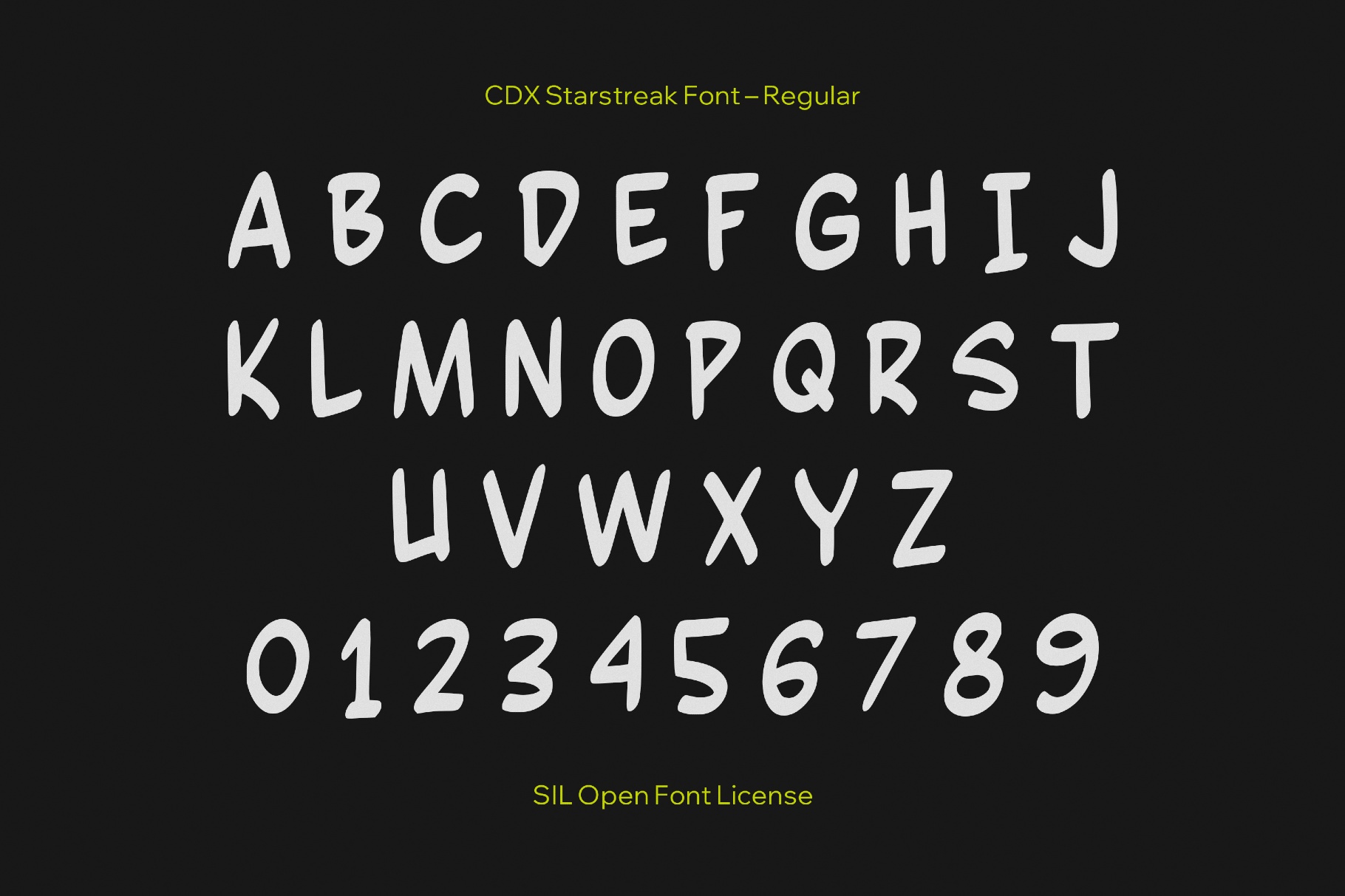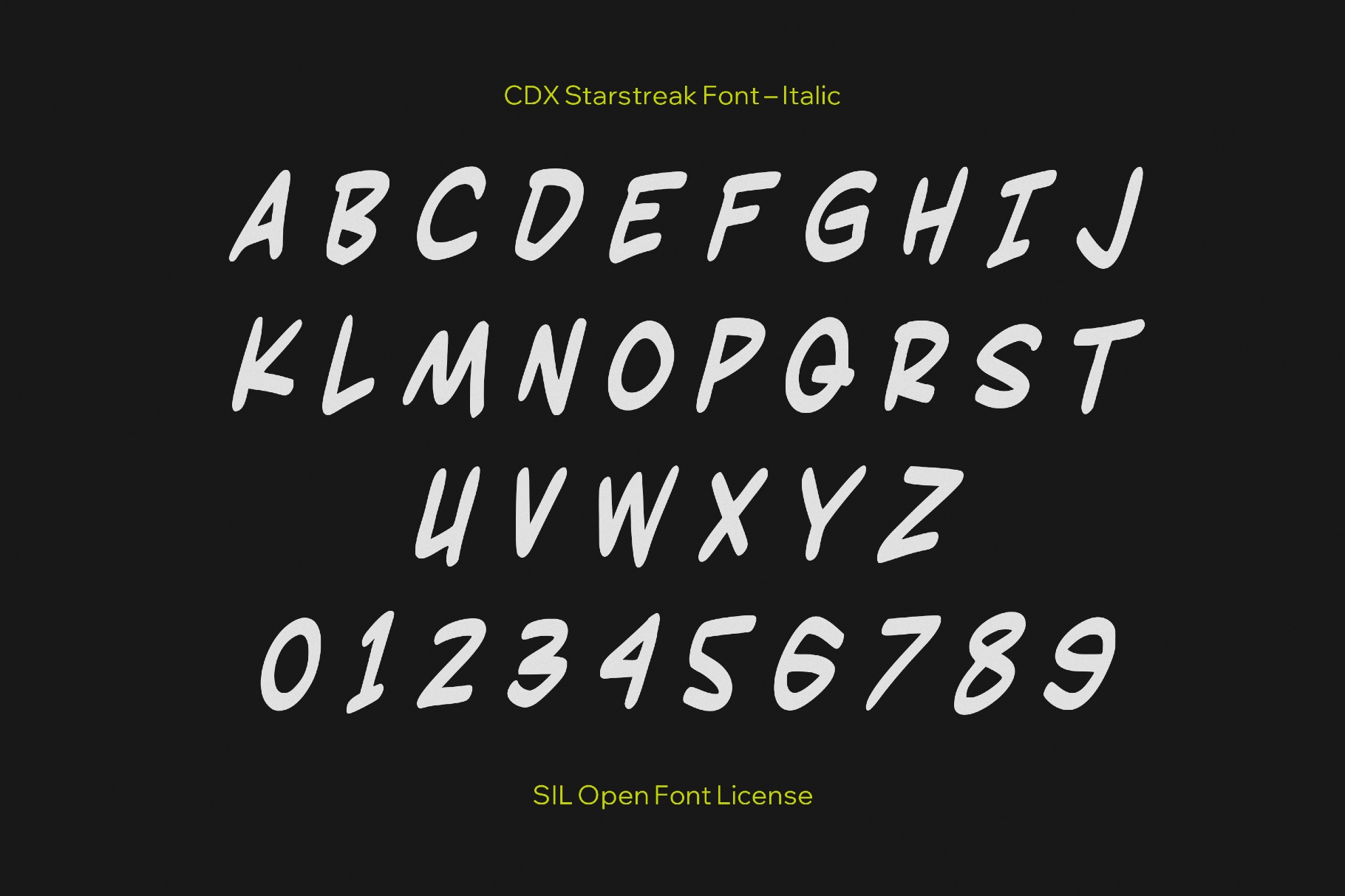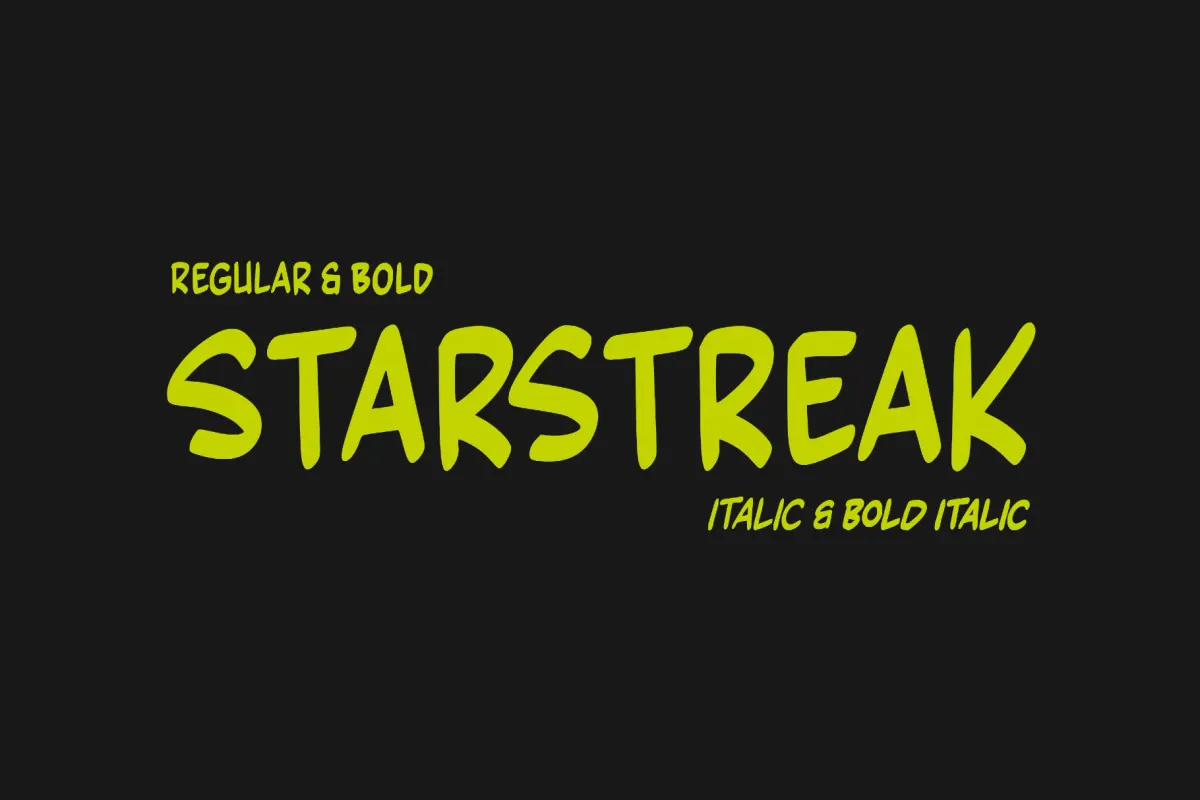
CDX Starstreak Font
CDX Starstreak is an all-caps comic display with speedy, marker-like strokes and angular letters that push every word forward like a sound effect. This typeface fits comic panels, gaming overlays, superhero posters, HUD labels, YouTube and stream thumbnails, youth branding, sticker packs, esports graphics, and event promos or flyers.
- Four styles: Regular, Italic, Bold, and Bold Italic.
- Only uppercase letters.
- Double-letter ligatures.